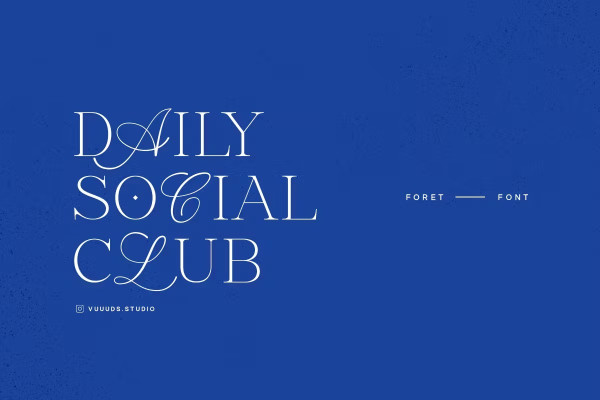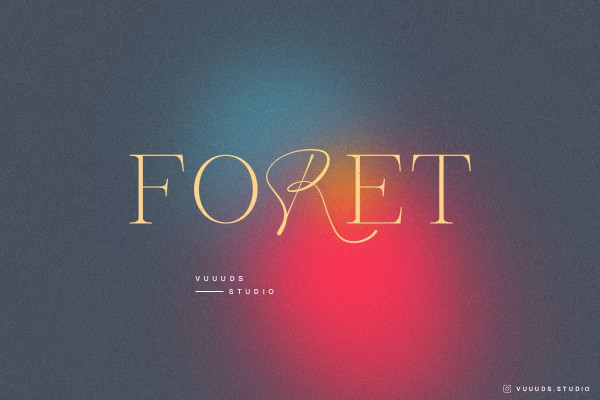
Foret Font
Foret Font is modern font duo style, every single letter has been uniquely crafted. This font including beautiful alternate glyph. You can access the alternate glyph via Font Book (Mac user) or Windows Character Map (Windows user), I’ve been put the link tutorial inside the zip file.